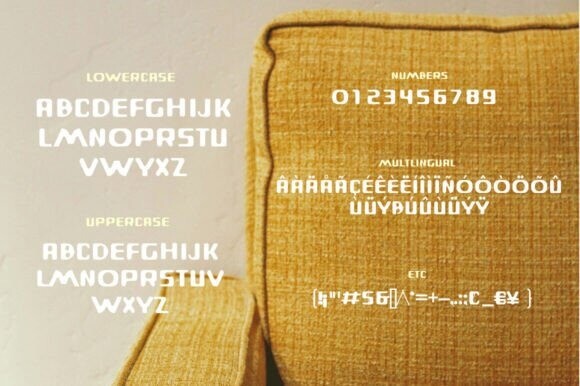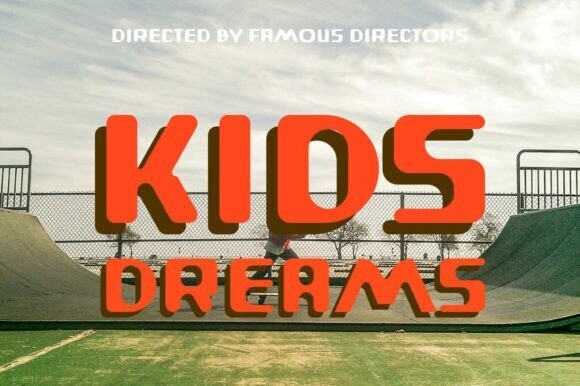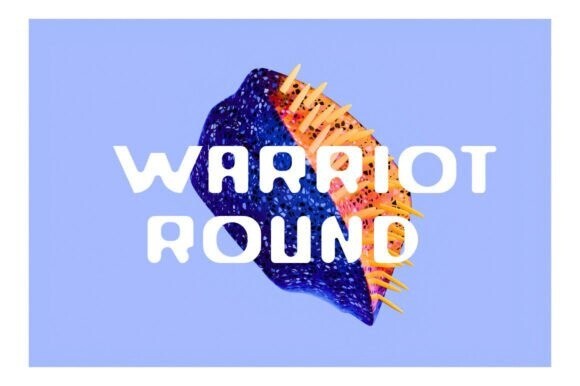
Warriot Round Font
Designer: ffeeaarr
Warriot Round Font A font that can stretch and shrink, curve and twist, yet remain perfectly legible and elegant. A font that can fit seamlessly into any design, from a tiny watch face to a towering billboard.